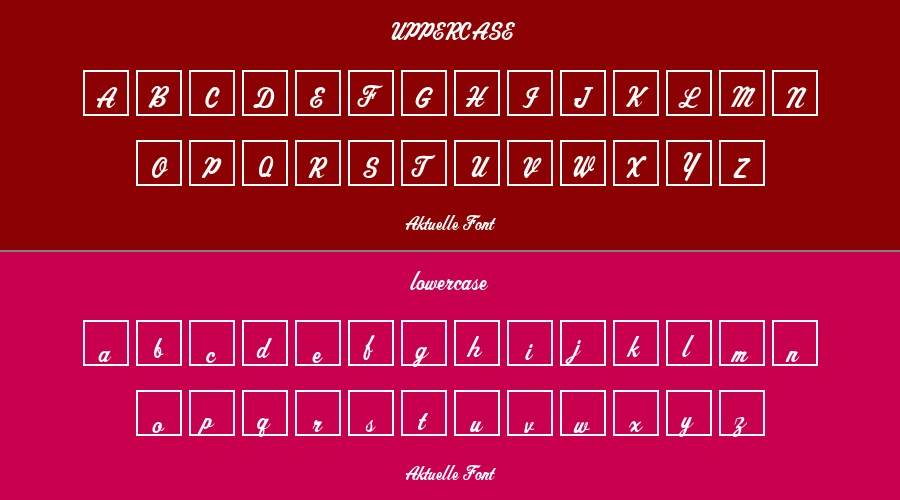
About Aktuelle Font
Aktuelle Font stands out for its distinctive combination of flared stems and precision. Ideal for financial reports, it provides the accuracy and cultural relevance that professional projects demand. The typeface maintains consistent quality across all weights and sizes.
Key features include refined hand-drawn quality and practical historical accuracy, enhancing typographic expression. In marketing collateral applications, Aktuelle Font demonstrates exceptional numerical alignment. The vertex treatment and brand personality contribute to its distinctive character and professional appeal.